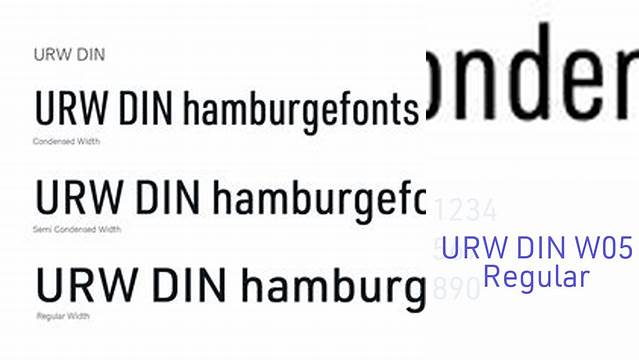
Exploring the Versatile URW DIN Condensed Regular Font
The URW DIN Condensed Regular font is a true workhorse in the design world, guys. It's one of those typefaces that pops up everywhere, from corporate branding to minimalist posters, and for good reason! Its clean lines and condensed structure make it incredibly legible, even at small sizes, while maintaining a strong visual presence. When you're looking for a font that balances professionalism with a modern aesthetic, this is definitely one to consider. It’s not just about looking good; it’s about functionality. The condensed nature means you can pack more text into a smaller space without it feeling cramped, which is a lifesaver for tight layouts or when you're working with a lot of information. Think about annual reports, product packaging, or even web design where screen real estate is precious. This font just works. We’ll be diving deep into why it’s so popular, where you can snag a free download, and how to best utilize its unique characteristics in your projects. So, buckle up, design enthusiasts, because we're about to unlock the potential of this fantastic typeface. It’s more than just letters; it’s a tool to communicate effectively and stylishly. The subtle yet significant impact of a well-chosen font like URW DIN Condensed Regular can elevate your entire design. Let’s get started on understanding its appeal and practical applications.
Understanding the Origins of the DIN Typeface Family
Before we get too deep into the URW DIN Condensed Regular font free download aspect, it’s super important to appreciate where this typeface comes from. The DIN family itself has a fascinating history, rooted in German industrial standards. DIN stands for Deutsches Institut für Normung, which translates to the German Institute for Standardization. Back in the day, around the 1920s and 30s, there was a push for standardization in technical drawings and documentation. They wanted a typeface that was clear, legible, and universally understood in engineering and manufacturing contexts. This led to the development of the original DIN typeface, which was all about clarity and efficiency. It wasn't designed for fancy artistic expression, but for conveying information accurately and without ambiguity. This core principle of legibility and functionality still shines through in all its descendants, including our star, the URW DIN Condensed Regular. When designers adopted it for broader use, they appreciated its inherent readability and its somewhat utilitarian, yet elegant, aesthetic. It bridged the gap between technical precision and design sensibility. So, when you use this font, you're tapping into a legacy of German engineering and a commitment to clear communication that's stood the test of time. It's a testament to how functional design can also be incredibly beautiful and adaptable across different fields. The robustness and clarity embedded in its DNA make it a reliable choice for projects demanding precision.
Why URW DIN Condensed Regular is a Designer Favorite
So, what makes the URW DIN Condensed Regular font such a go-to for designers, huh? It’s a combination of factors that really hit the sweet spot. Firstly, that condensed aspect we keep mentioning. It means the letters are narrower than a standard typeface, allowing you to fit more characters onto a line without sacrificing readability. This is a massive advantage in design, especially when you're dealing with headlines, captions, or any text that needs to be impactful but space-efficient. Think of a movie poster with a punchy title, or a website where you want to convey a lot of information concisely. URW DIN Condensed Regular nails it. Secondly, its neutrality. While it has a distinct personality – clean, geometric, and modern – it’s not overly stylized. This makes it incredibly versatile. It doesn’t fight with other design elements; instead, it complements them. It works beautifully for branding, editorial design, UI/UX, and even wayfinding systems. The German roots mean it’s built on a foundation of clarity and precision, giving it an inherent sense of order and reliability. It’s the kind of font that feels trustworthy and authoritative without being stuffy. Plus, the URW version, developed by URW++ (a well-known type foundry), often comes with a comprehensive character set and good hinting, making it perform well across various digital and print applications. It’s a reliable choice that consistently delivers professional results. Guys, when you need a font that’s strong, clear, and adaptable, this one is a no-brainer.